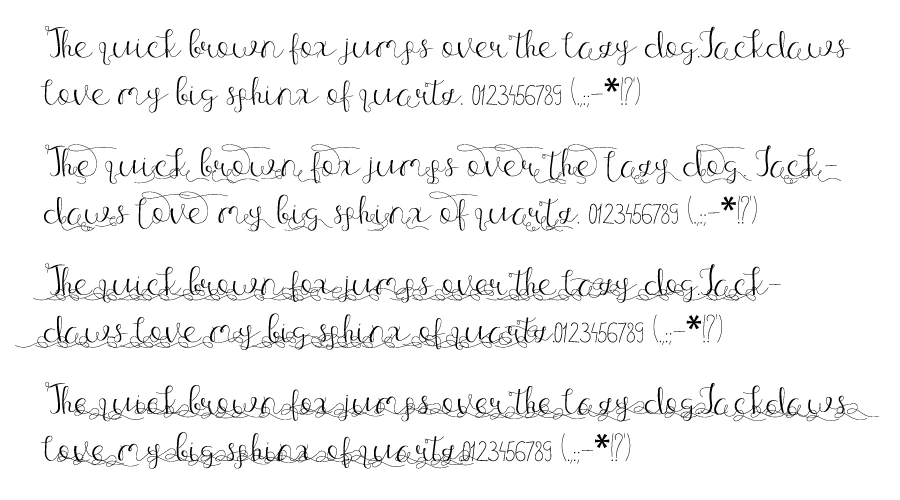
You’ve arrived at your favorite typeface. I am delighted to inform you that you have lovely handwriting. All of you will enjoy it. Andria Handmade Font is now available! AnnWay shared Andria’s design. An attractive typeface with a charming personality. Andria is ideal for all of your design requirements. This typeface combination is ideal for adding that fun aspect to picture overlays, branding projects, packaging, and all kinds of printing needs.
You can use the Andria to create unique designs, covers, and logos for your shop or store. Andria is also suitable for branding projects, homeware designs, product packaging, or as a classy text overlay on any background image. Andria is the ideal typeface for all of your whimsical designs.
Andria Font View